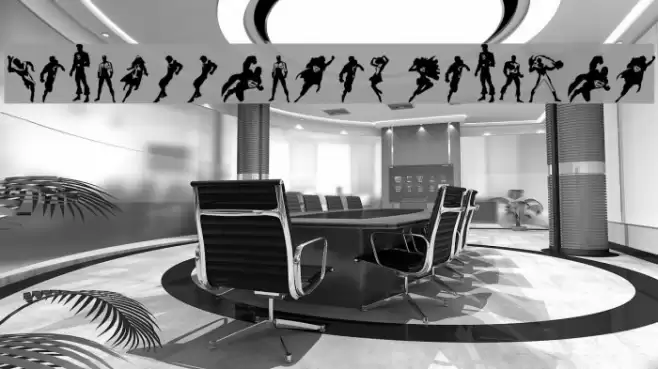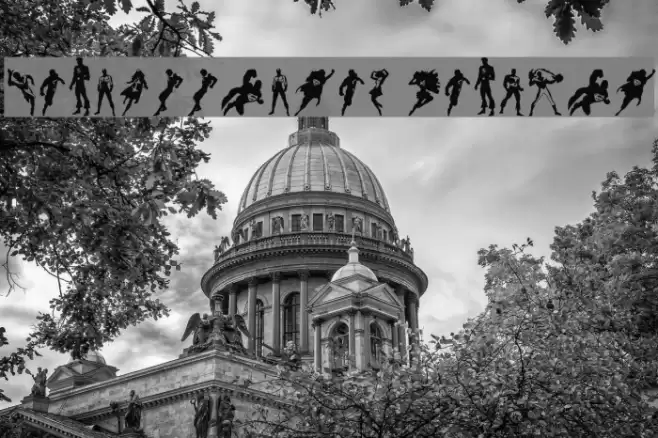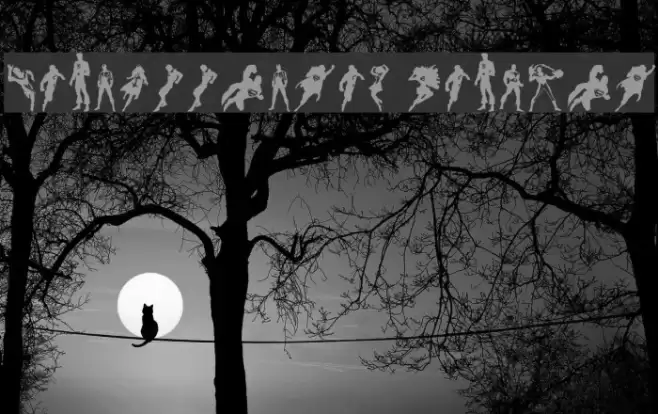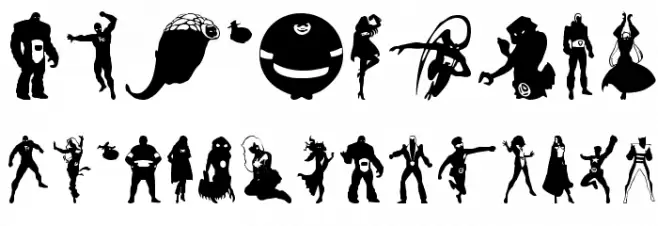
Legionnaires Regular Font
Legionnaires Regular Description
A decorative display font composed of bold, black silhouettes of various superhero figures and comic-inspired characters, each glyph representing a unique pose or character rather than traditional letterforms.
Superhero silhouette font with each glyph as a character pose from Uncategorized fonts.
- Proposed Projects: Comic book titles, superhero-themed party invitations, posters, children’s events, novelty branding.
- Overall Style: Decorative, Comic, Playful
- Use Case: Logos, Headlines, Posters, Themed graphics